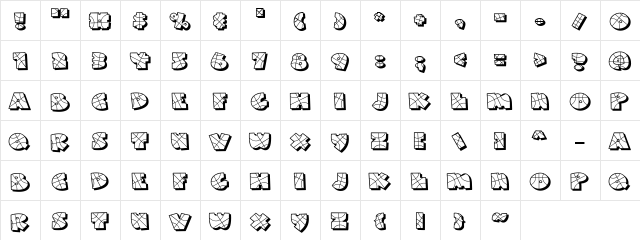
LD Basketball Regular Font Preview
LD Basketball Regular
LD Basketball Regular Font Details
Design Context for LD Basketball Typeface
LD Basketball is a composed and adaptable typeface that performs quietly and consistently across a wide range of design contexts.